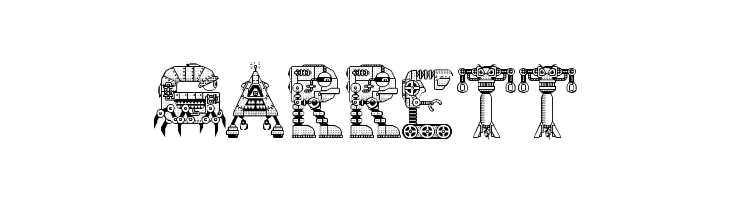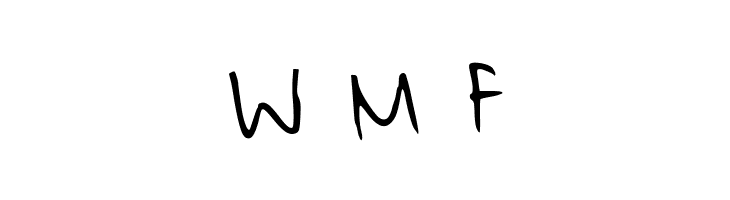
( Fonts by Médéric Niot )
A decorative font with characters designed as mechanical structures.
An edgy, angular font with geometric elements and decorative details.